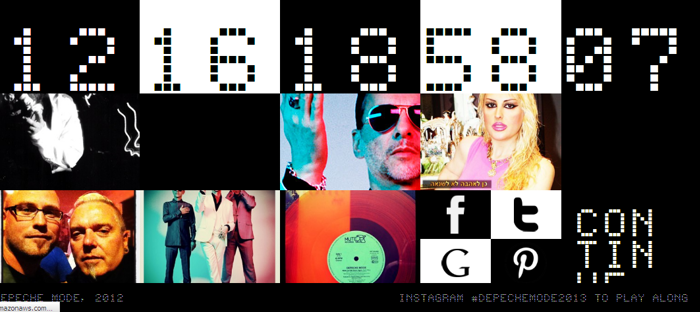
Erbos Draco Monospaced NBP Font
Erbos Draco 1st Open NBP Regular Style
Another LED scoreboard-styled typeface to throw onto the pile of LED scoreboard-styled typefaces.
-Depeche Mode's Countdown website
-Removed Erbos Draco 2nd version because that design is now part of ErbosDraco Nova!
-Essentially, V.1.2 has de-evolved into V.1.0 :P Are we not men?
Are you the true creator of this font?
@MagicalWorldName Thanks! I drew it from scratch. It might be similar to others but I didn't copy anything.
@Nate547 Yes, but I'm questioning if this font is yours, if you're the creator of the font
@MagicalWorldName I made it with Fontstruct. So yes, I created it.
It seems version 1.0 may actually be used on http://countdown.depechemode.com/ - congrats!
@MrLove Oh great! So now I have to bring it back?! XD
Couldve made this with fontstruct
Such a font is sensational ... lcd font, like my other fonts ... they are my most precious hobby